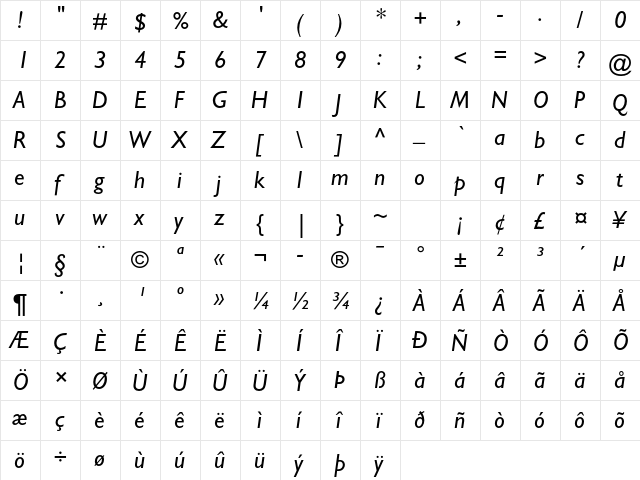
Gill Sans Std Italic
| Designer | Eric Gill |
Design Context for Gill Sans Std Typeface
Gill Sans Std takes a measured approach to typography — its balanced proportions and neutral character make it a reliable workhorse for both digital and print work. The slanted form adds forward momentum and visual energy.
Pro Tip: Use Gill Sans Std for emphasis, pull quotes, and subheadings where its slanted energy can add rhythm to the layout.